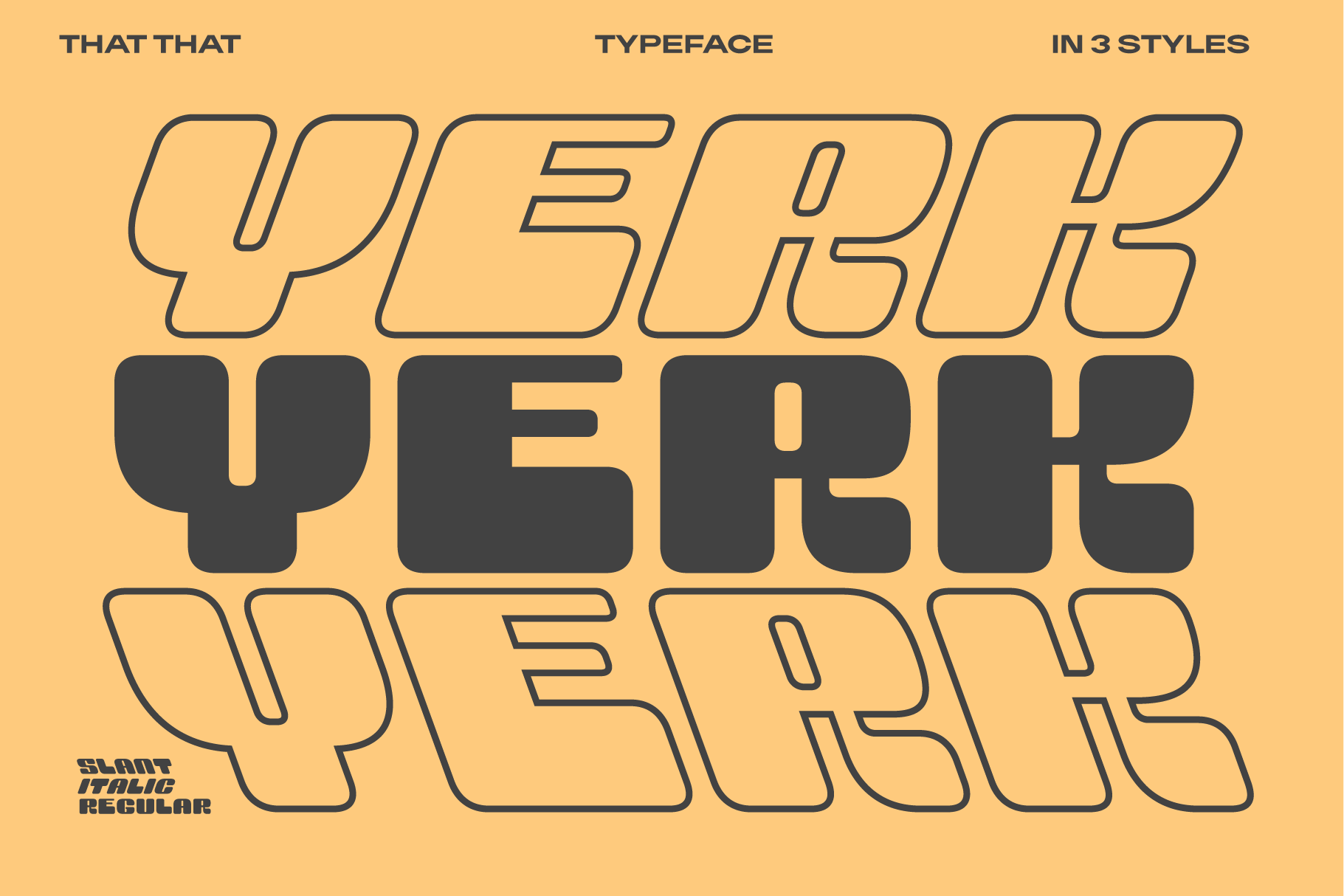
Yerk Y2K Font in 3 Styles
Yerk is another modern Y2K inspired font. This retro font comes in 3 styles regular italic and slanted. Its bold weight, squared-off letters with slightly rounded corners make it perfect for adding big impact and a bit of personality to your design. It is perfect for logos, branding, magazines, Instagram, and whatever project you are looking for.